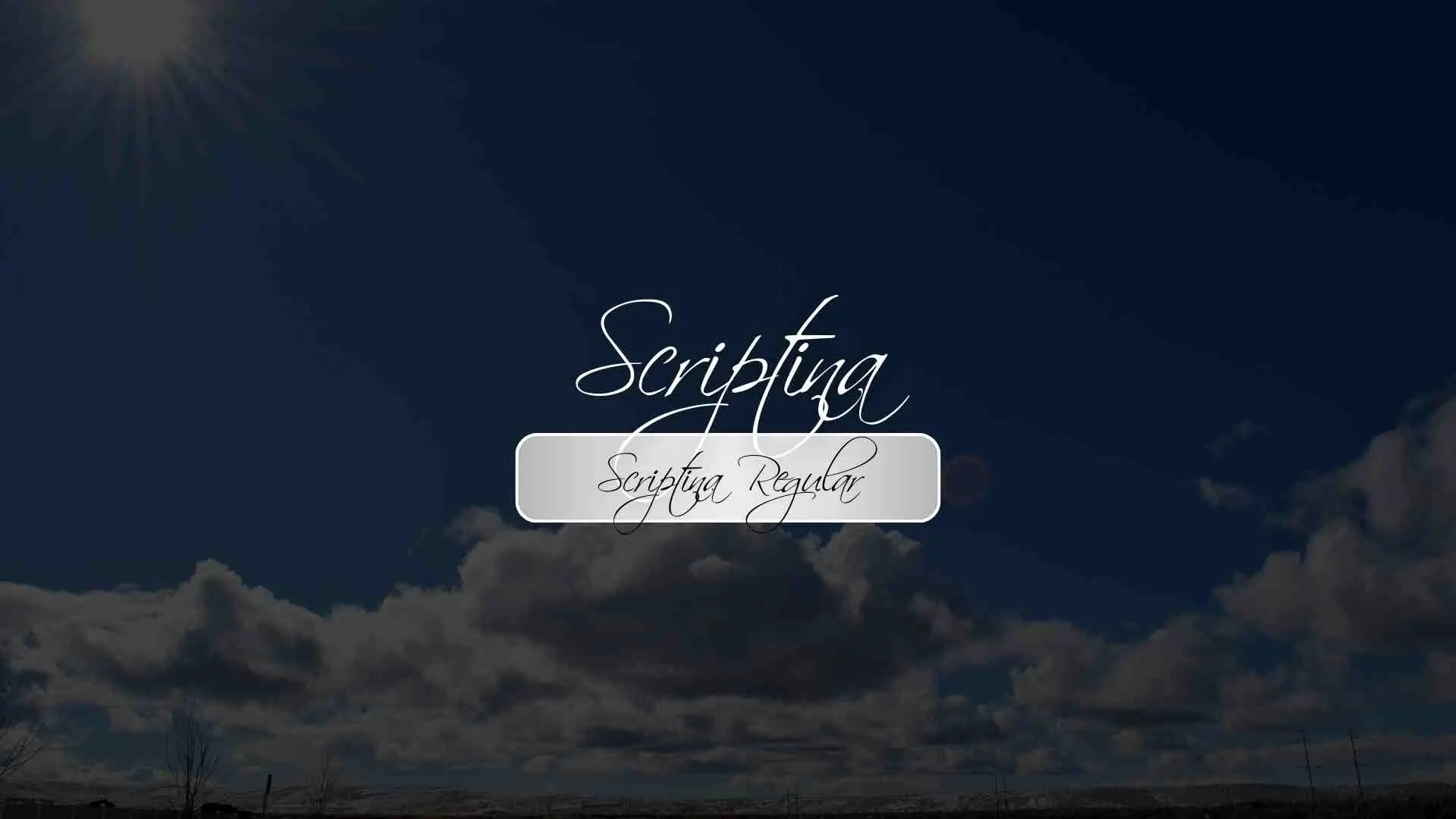
The font Scriptina Regular, designed by Apostrophic Labs, falls under the Handwritten, Script category & Scriptina font family. Its smooth, flowing letterforms make it a versatile choice for projects that require both elegance and readability. Scriptina is particularly well-suited for Headlines and Titles, Invitations and Stationery, Branding and Logos, Short and Decorative Text. With its balance of simplicity and decorative appeal, this font brings a polished touch to both personal and professional designs.